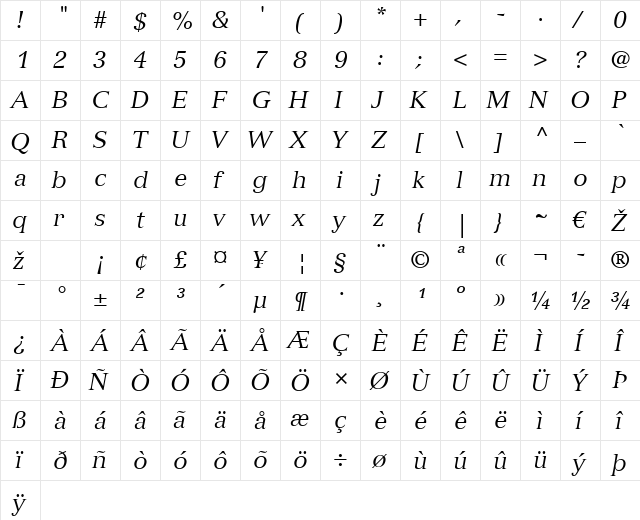
Versailles LT Italic
Design Context for Versailles LT Typeface
Versailles LT offers clean, dependable letterforms without strong stylistic allegiance, making it a practical choice for designers who need flexibility. The slanted form adds forward momentum and visual energy. The delicate stroke weight brings airiness and refinement to layouts.
Pro Tip: Use Versailles LT for emphasis, pull quotes, and subheadings where its slanted energy can add rhythm to the layout.